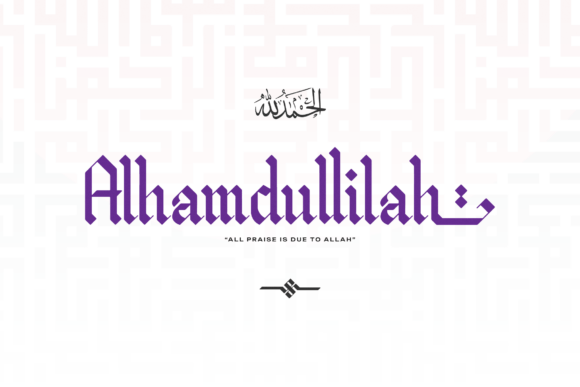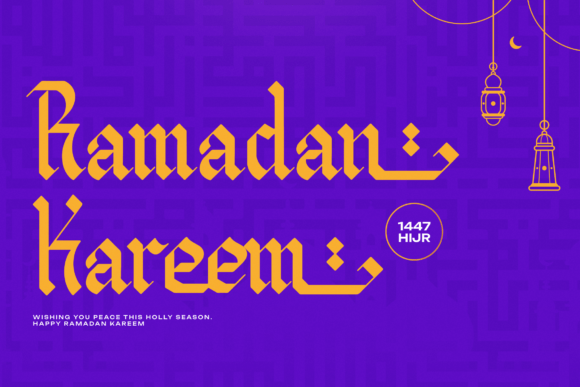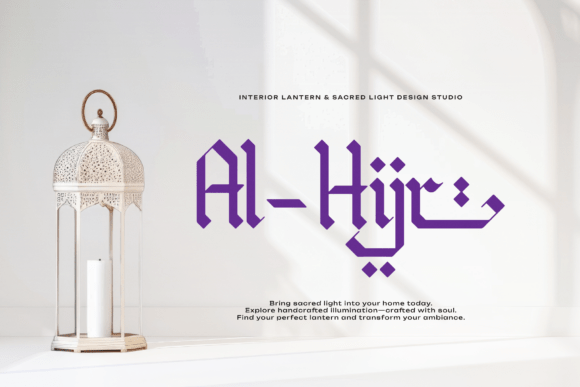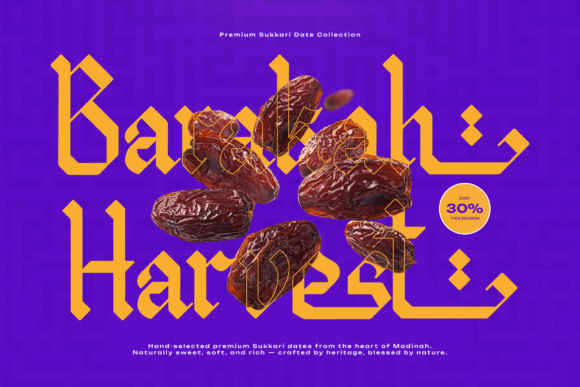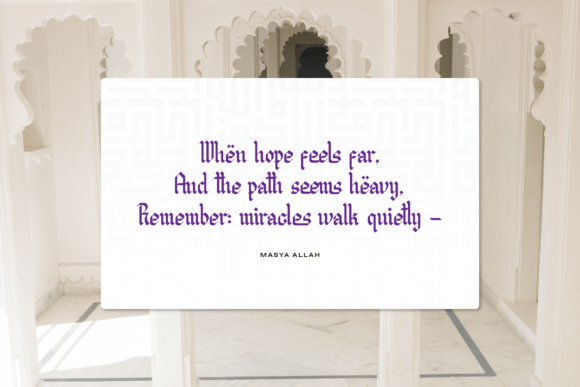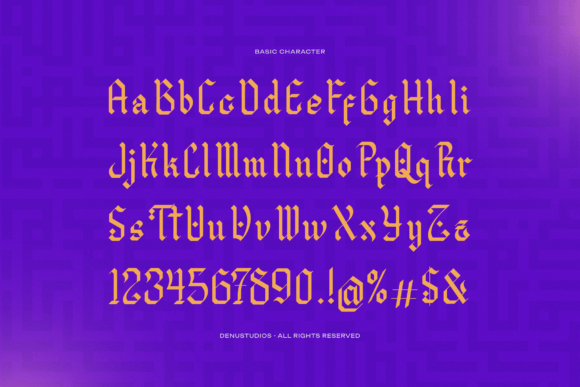
Introducing Al Mughir Font: A Masterful Blend of Tradition and Modernity
In the world of typography, few fonts manage to strike a balance between ancient heritage and modern sophistication. Al Mughir Font is one such exceptional typeface that seamlessly merges the elegance of classic Arabic calligraphy with the precision of modern geometric design. This exquisite display font is poised to elevate your designs with its striking, angular forms and powerful, chiseled lines that demand attention.
The Inspiration Behind Al Mughir
Al Mughir’s design is deeply rooted in the rich tradition of Arabic calligraphy, an art form renowned for its beauty and expressive qualities. The font’s creator drew inspiration from the intricate and flowing scripts that have been a hallmark of Arabic typography for centuries. By infusing these classic elements with a modern geometric approach, Al Mughir achieves a unique and captivating aesthetic that is both timeless and contemporary.
Key Features of Al Mughir Font
- Striking Angular Forms: Al Mughir’s characters are distinguished by their bold, angular structures that convey a sense of power and sophistication.
- Powerful, Chiseled Lines: The font’s lines are meticulously crafted to give it a chiseled, three-dimensional appearance, adding depth and grandeur to any design.
- Blocky, Ribbon-Like Structure: This unique feature gives Al Mughir a contemporary yet regal feel, making it an excellent choice for luxury branding and high-impact designs.
- PUA Encoding: With PUA (Private Use Area) encoding included, Al Mughir ensures that all special characters and decorative elements are easily accessible without the need for additional software, streamlining your design process.
Perfect for High-Impact Designs
Al Mughir’s distinctive style makes it the perfect choice for a variety of design projects that require a bold, cultural, and impactful aesthetic. Some of the ideal applications for this font include:
- Luxury Branding: Use Al Mughir to create luxurious and memorable brand identities that stand out in the market.
- Headline Design: Its striking appearance makes it an excellent choice for headlines and titles that need to capture attention.
- Album Covers: Add a touch of elegance and modernity to your music album covers with Al Mughir’s unique and captivating design.
- High-Impact Projects: Any project that requires a bold and impactful aesthetic, such as posters, banners, and advertisements, will benefit from Al Mughir’s distinctive style.
Why Choose Al Mughir Font?
Choosing Al Mughir for your typography needs offers several advantages:
- Unique Aesthetic: Al Mughir’s blend of traditional Arabic calligraphy and modern geometric precision provides a unique aesthetic that sets it apart from other fonts.
- Versatility: Despite its distinctive style, Al Mughir is versatile enough to be used in a variety of design contexts, from digital media to print.
- Attention to Detail: The inclusion of PUA encoding and a wide range of special characters and decorative elements ensures that designers have everything they need to create detailed and intricate designs.
Al Mughir Font is a masterful blend of ancient tradition and modern design, offering a unique and impactful aesthetic for designers and crafters. Its striking angular forms, powerful chiseled lines, and blocky ribbon-like structure make it perfect for luxury branding, headline design, album covers, and any project that demands attention and sophistication. With its PUA encoding and wide range of special characters, Al Mughir is an excellent addition to any designer’s toolkit. Present your work with the majesty of Al Mughir and elevate your designs to new heights of elegance and modernity.